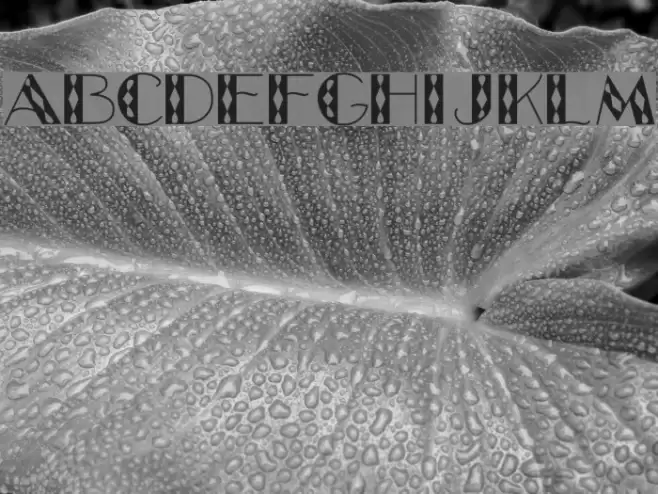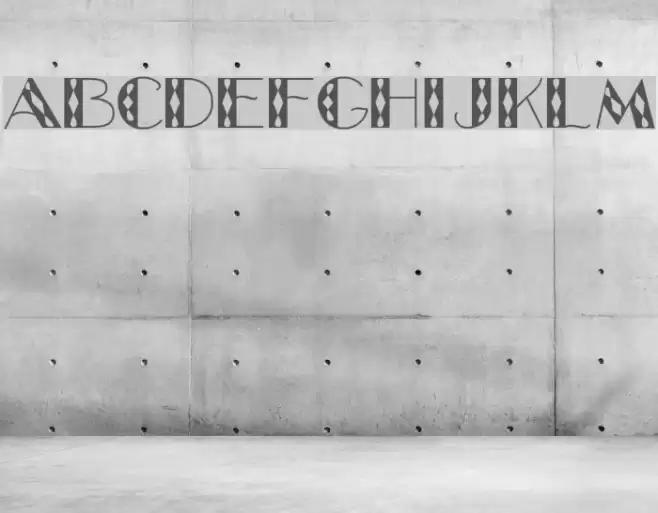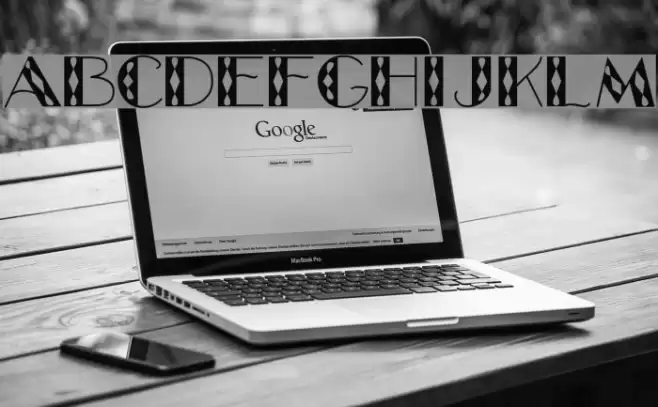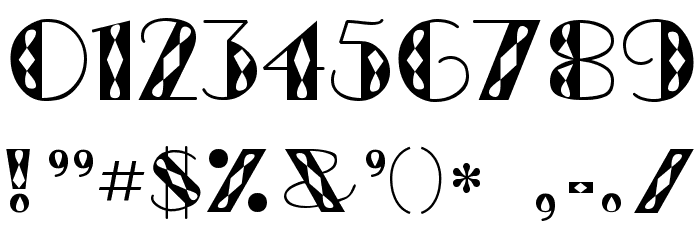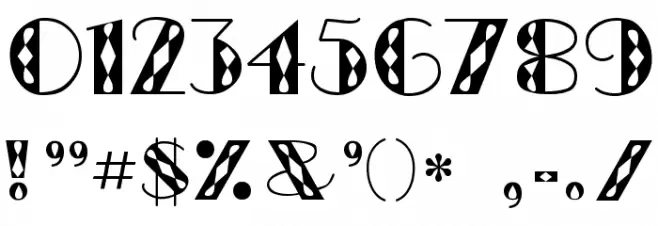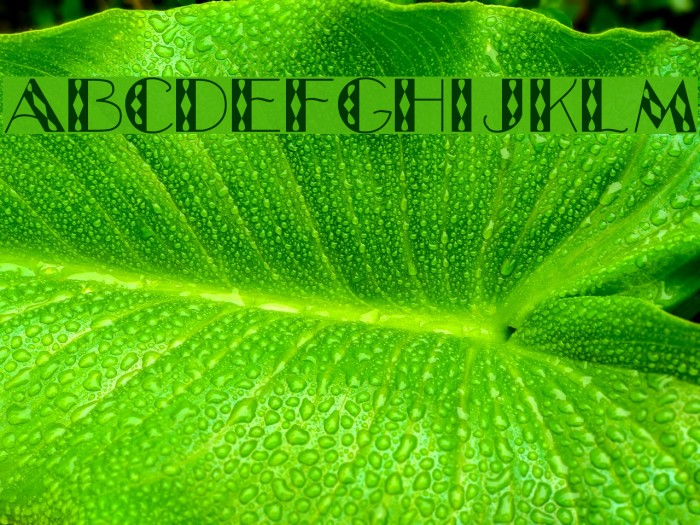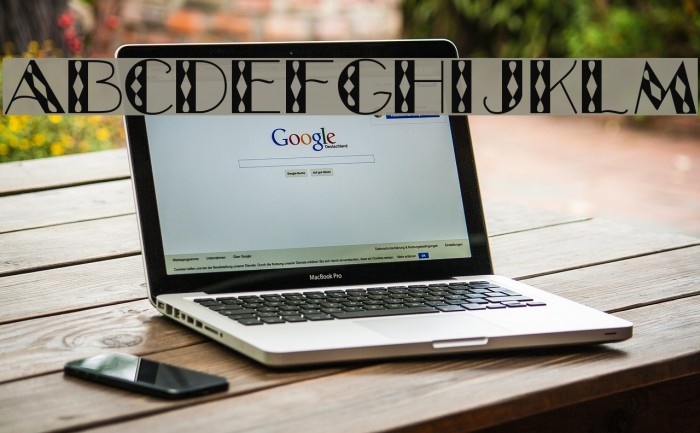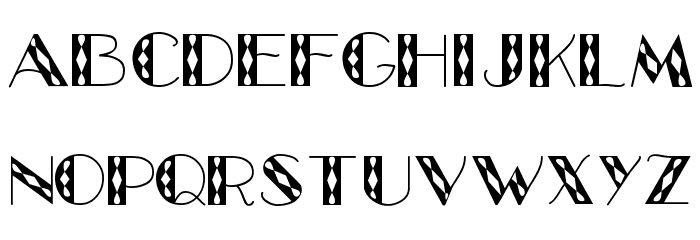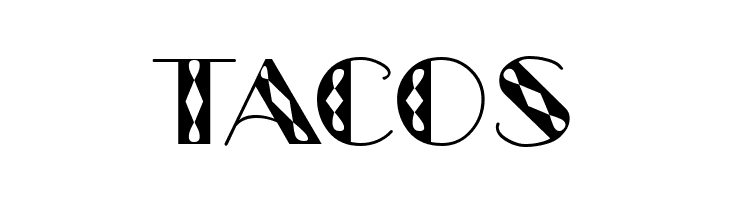
GlitzyJewel Regular Font
GlitzyJewel Regular Description
This font features a unique and decorative style with an elegant, jewel-like pattern embedded within each character. The uppercase and lowercase letters maintain a consistent design, characterized by bold geometric shapes and intricate detailing that resembles facets of a gemstone. The numbers and special characters follow the same ornate theme, making the font ideal for eye-catching displays. Its artistic flair is perfect for projects that require a touch of glamour and sophistication.
A decorative font with jewel-like patterns and bold geometric shapes from Decorative fonts.